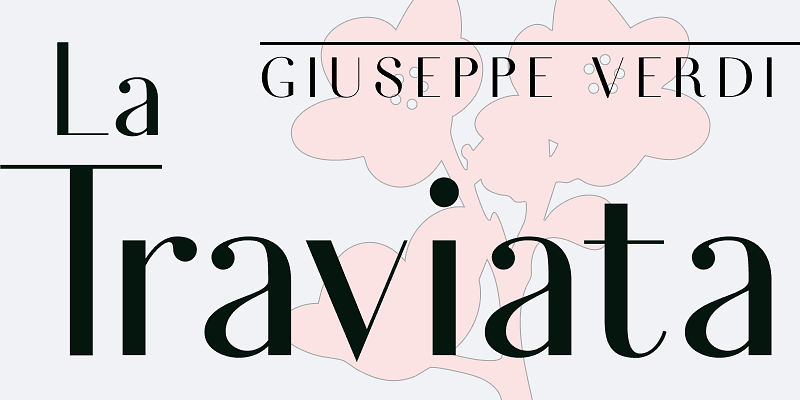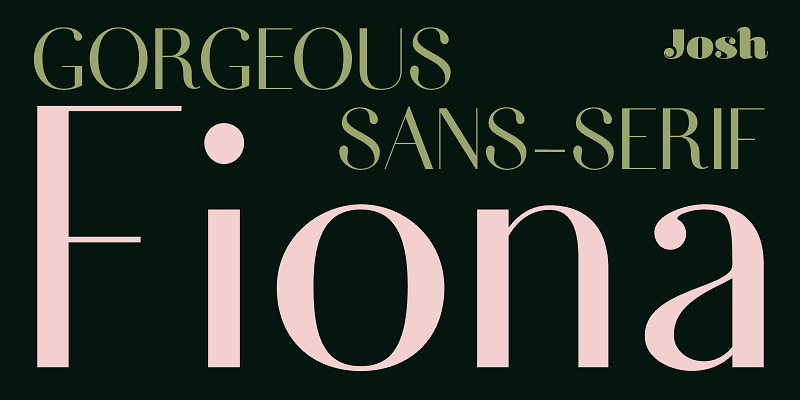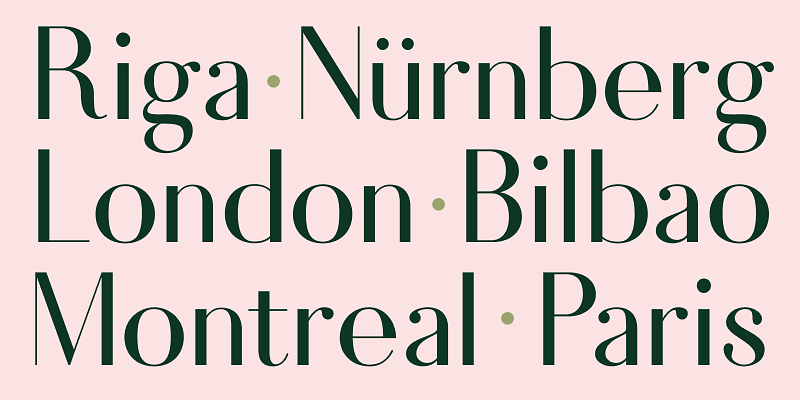
Fiona is a gorgeous sans-serif, classically elegant and inherently modern in its appearance and proportions. Inspired by traditional letterforms once popular in publishing and display graphics, this Art Deco design gives your typography a refined feel with uncluttered, high-contrast letterforms. Fiona is perfect for wedding invitations, film posters, magazine layouts, book covers, restaurant menus, or anything requiring a sleek look with a vintage flair.